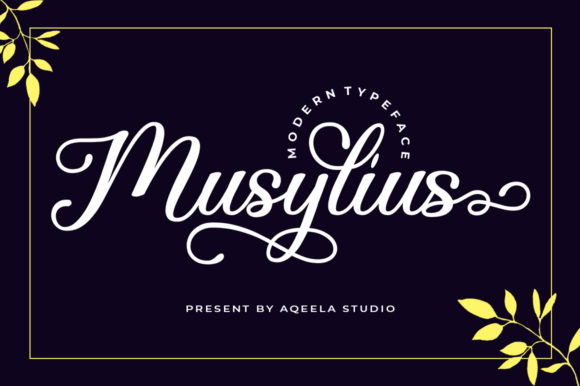
Musylius Font
Unveil the Elegance of Musylius: A Calligraphic Masterpiece for Creative Expression
In a world of digital monotony, where fonts often blend into a sea of sameness, Musylius emerges as a breath of fresh air, a calligraphic masterpiece that captures the essence of creativity and expression. Embark on a typographic journey where letters dance along the baseline, harmonizing in an elegant symphony of form and flow. Musylius transcends the boundaries of ordinary fonts, inviting you to elevate your designs with its captivating allure.
Step into a realm of endless possibilities, where Musylius's graceful curves and delicate strokes bring a touch of sophistication to your projects. Its versatility shines through, whether you're crafting logos that command attention, wedding invitations that exude romance, or headings that demand a second glance. Musylius effortlessly adapts to your artistic vision, adding a touch of timeless beauty to every creation.
Musylius is more than just a font; it's an experience that captivates and inspires. Whether you're a seasoned designer seeking to elevate your work or a novice exploring the art of typography, Musylius welcomes you with open arms. Its user-friendly nature makes it accessible to all, inviting you to unleash your creativity and explore the limitless possibilities of expression.
With Musylius as your creative companion, you'll discover a world where words take on a life of their own, where letters intertwine to create a visual tapestry that captivates and enchants. Its versatility knows no bounds, extending from t-shirts that make a statement to letterheads that exude professionalism, signage that attracts attention to labels that leave a lasting impression.
So, embrace the allure of Musylius, let its enchanting strokes ignite your imagination, and embark on a typographic adventure that will leave you breathless. Adorn your designs with a touch of elegance, a hint of sophistication, and a dash of creativity. Musylius awaits, ready to transform your words into works of art.